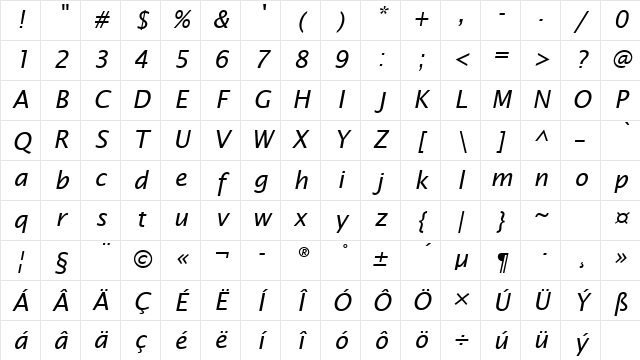
Lucida Sans CE Italic
Design Context for Lucida Sans CE
Lucida Sans CE is a composed and adaptable typeface that performs quietly and consistently across a wide range of design contexts. The slanted form adds forward momentum and visual energy.